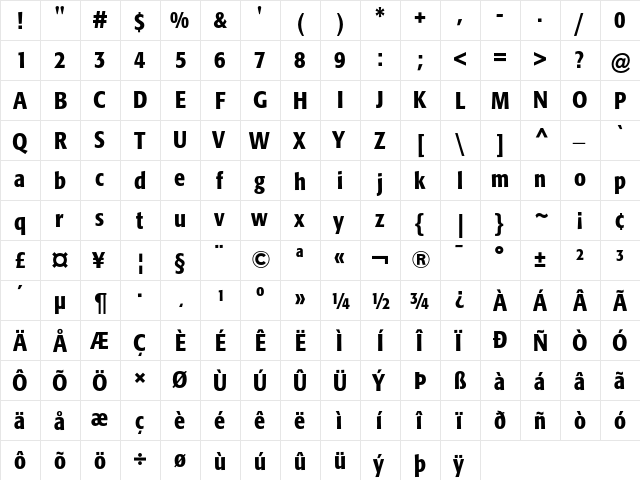
Formata Medium Condensed
Design Context for Formata Typeface
Formata offers clean, dependable letterforms without strong stylistic allegiance, making it a practical choice for designers who need flexibility. The condensed width makes it efficient for tight spaces without sacrificing legibility.